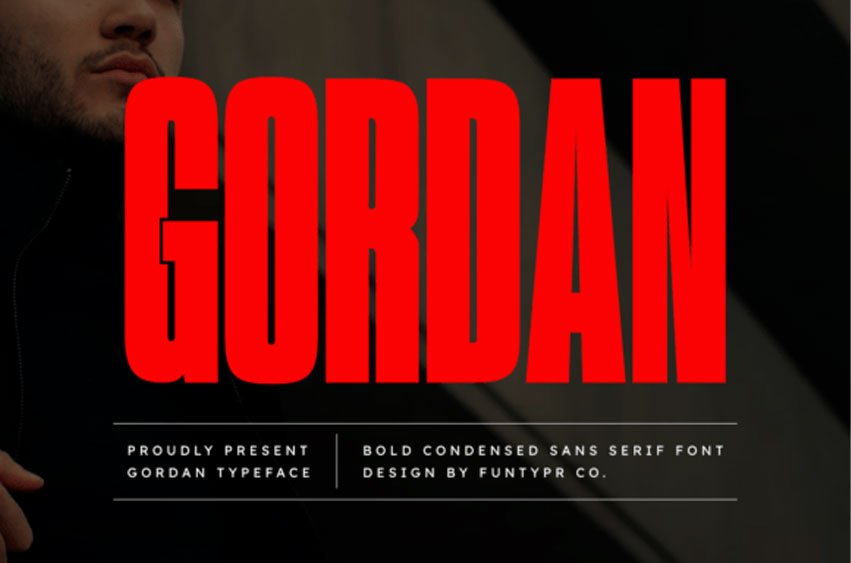
Gordan Font is a bold and powerful condensed sans serif font designed for high-impact and precise typography. With its refined vertical structure and clean, solid lines, this font is perfect for strong headlines, professional sports logos, industrial branding, and high-impact digital posters.
Its confident and balanced design gives your visuals a striking, professional, and advanced look. Provided in OTF and TTF formats for maximum compatibility across all design platforms.